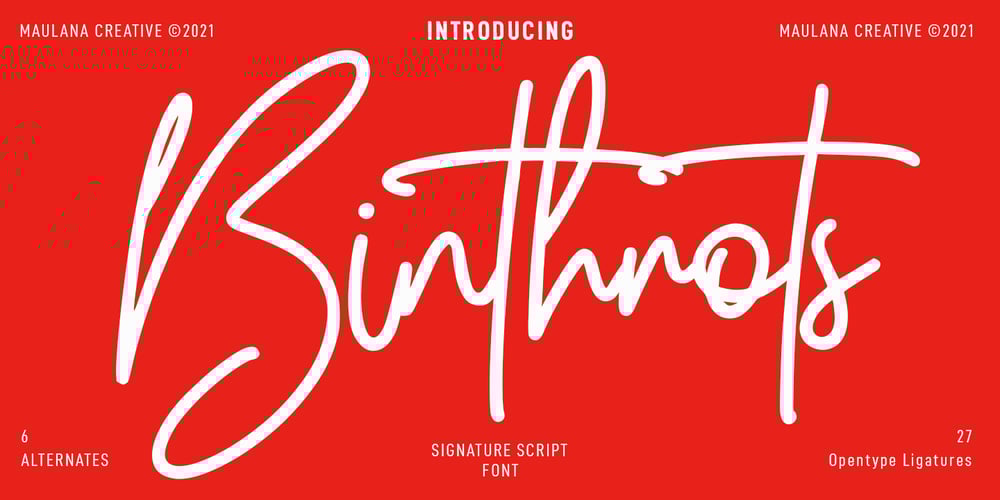
Binthrots Font Family was designed by Gilang Maulana and published by Maulana Creative. Binthrots contains 1 styles and family package options. Bintrhots is a Casual Script font. With regular mono-line stroke and fun character with some of natural ligatures and lowercase alternates. To give you an extra creative work. Bintrhots font support multilingual more than 100+ language. This font is good for logo design, Social media, Movie Titles, Books Titles, a short text even a long text letter and good for your secondary text font with sans or serif. Make a stunning work with Bintrhots font. Cheers, MaulanaCreative